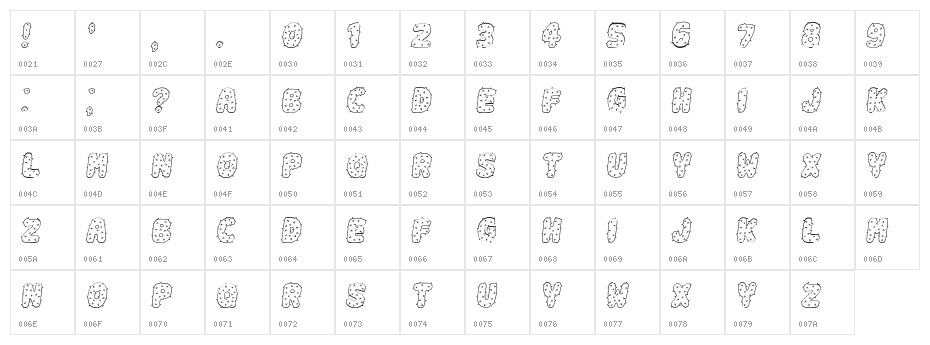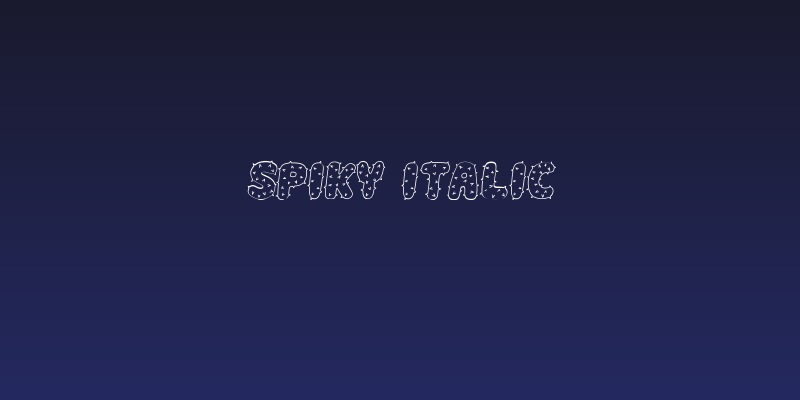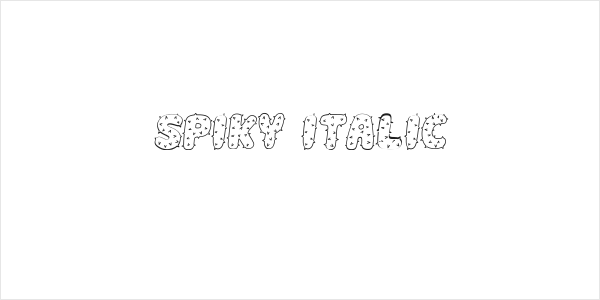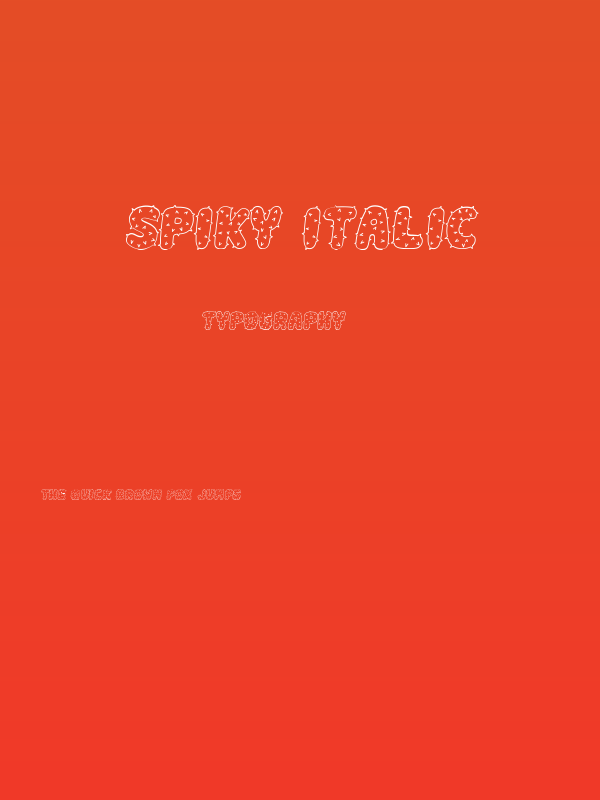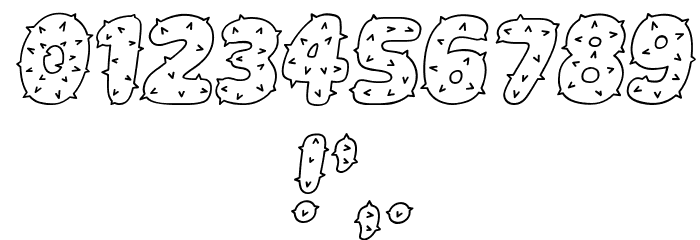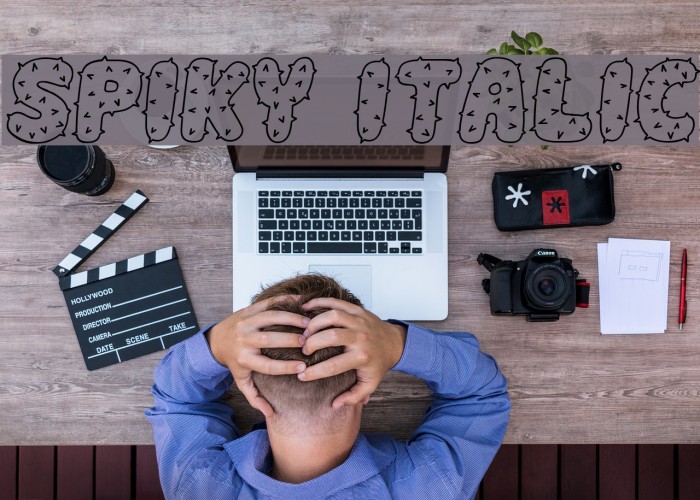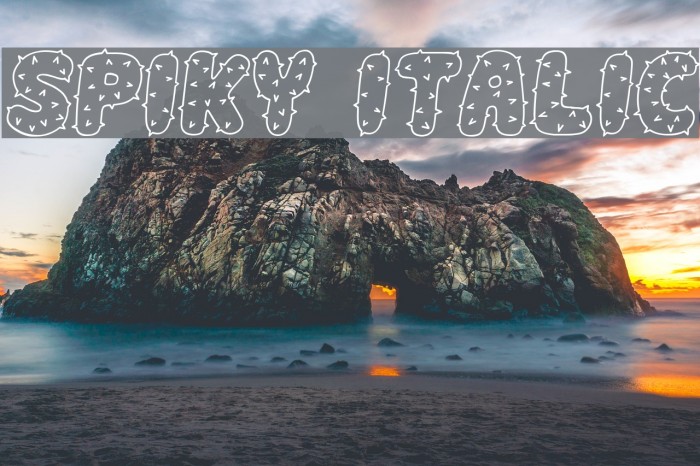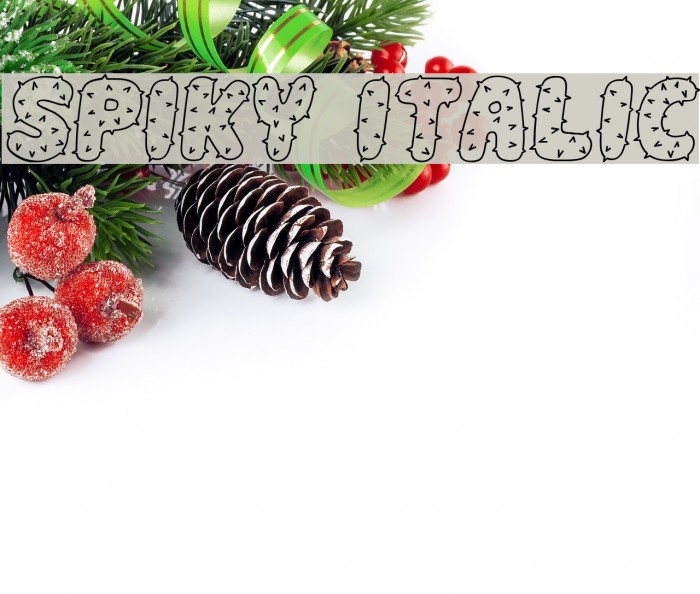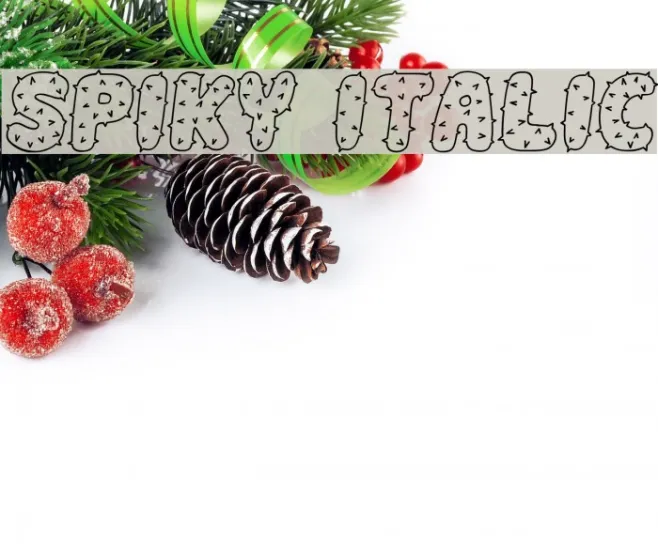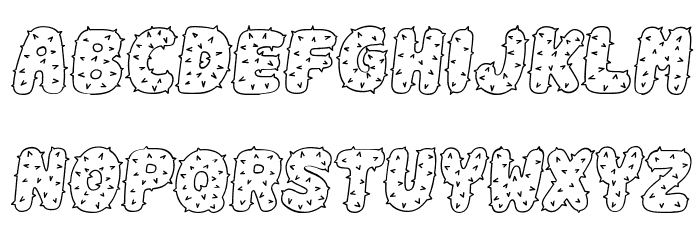
Spiky Italic Font
Spiky Italic Description
This font features a bold and playful design with a spiky, cactus-like texture. Each character is filled with small, pointed spikes that give it a unique and edgy appearance. The letters are rounded and thick, contributing to a friendly yet unconventional style. The font maintains a consistent weight across all characters, ensuring readability while still offering a distinct visual impact. The spiky elements add a sense of movement and energy, making it ideal for creative and dynamic projects. Its boldness and decorative nature make it stand out, perfect for capturing attention.
| Proposed Projects | Ideal for posters, children's books, event flyers, and branding that requires a fun and eye-catching typeface. |